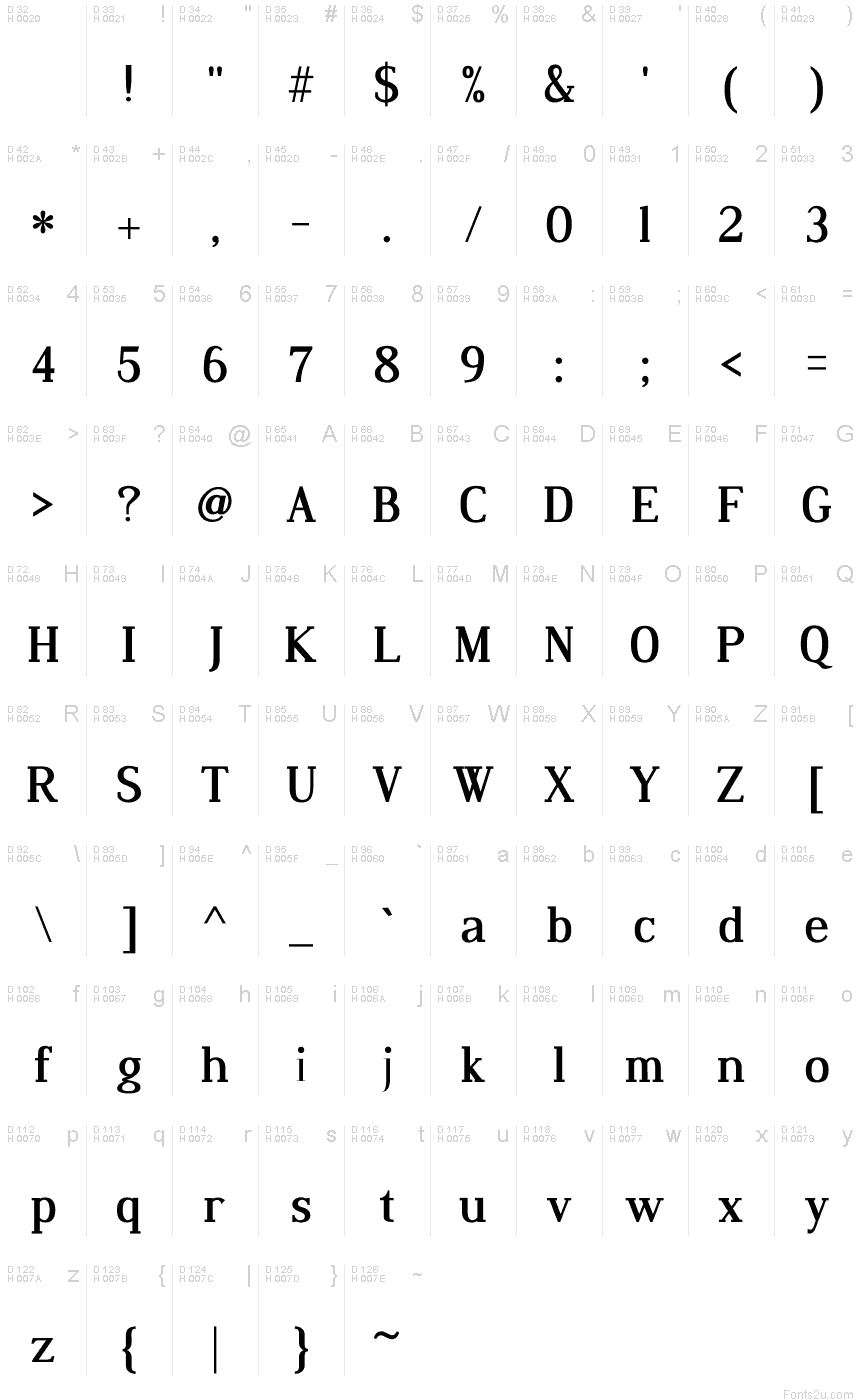
Dustismo Roman Bold font by Dustin Norlander is a free serif typeface that gives you strong, readable weight without feeling heavy-handed. Letters stand upright and steady, with clean strokes and just enough flare on the edges to keep text from looking flat. In the Dustismo Roman family, this bold cut locks in a confident texture on the page, making headings and pull quotes feel solid and trustworthy while still matching body copy gracefully.
Using Dustismo Roman Bold, you can tackle book covers, long-form articles, editorial spreads, news websites, academic reports, and polished corporate PDFs with one consistent voice. The spacing stays tight but not cramped, so lines stack neatly on screens and in print. This free font also works beautifully for logos that need a serious, text-centered mark. For a simple pairing tip, set Dustismo Roman Bold for titles and match it with a clean geometric sans for navigation and captions.
Dustismo Roman
Dustismo Roman Bold
Dustin Norlander